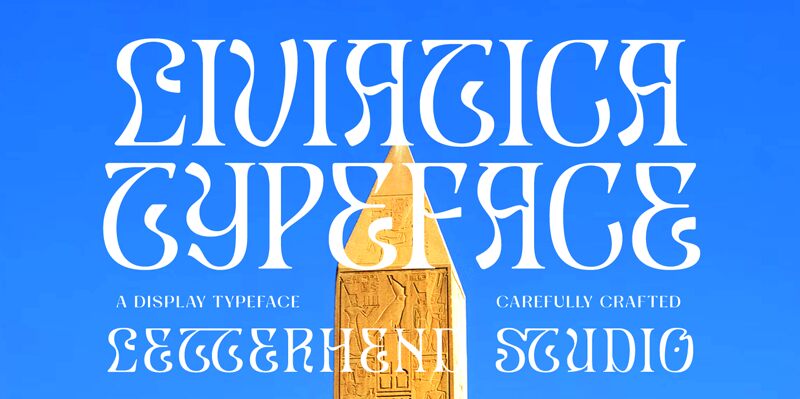
Liviatica is a retro serif display font created by Letterhend Studio. Its semi-light weight and semi-condensed width make it perfect for striking headlines and attention-grabbing logos. Liviatica's vintage charm and elegant curves give it a unique personality, making it suitable for projects that require a touch of nostalgia, such as branding for boutique shops, food packaging, or signage for classic movie theaters. This versatile typeface can also be used in editorial design or on websites to add a touch of sophistication to any project. Bring your designs to life with the timeless beauty of Liviatica!